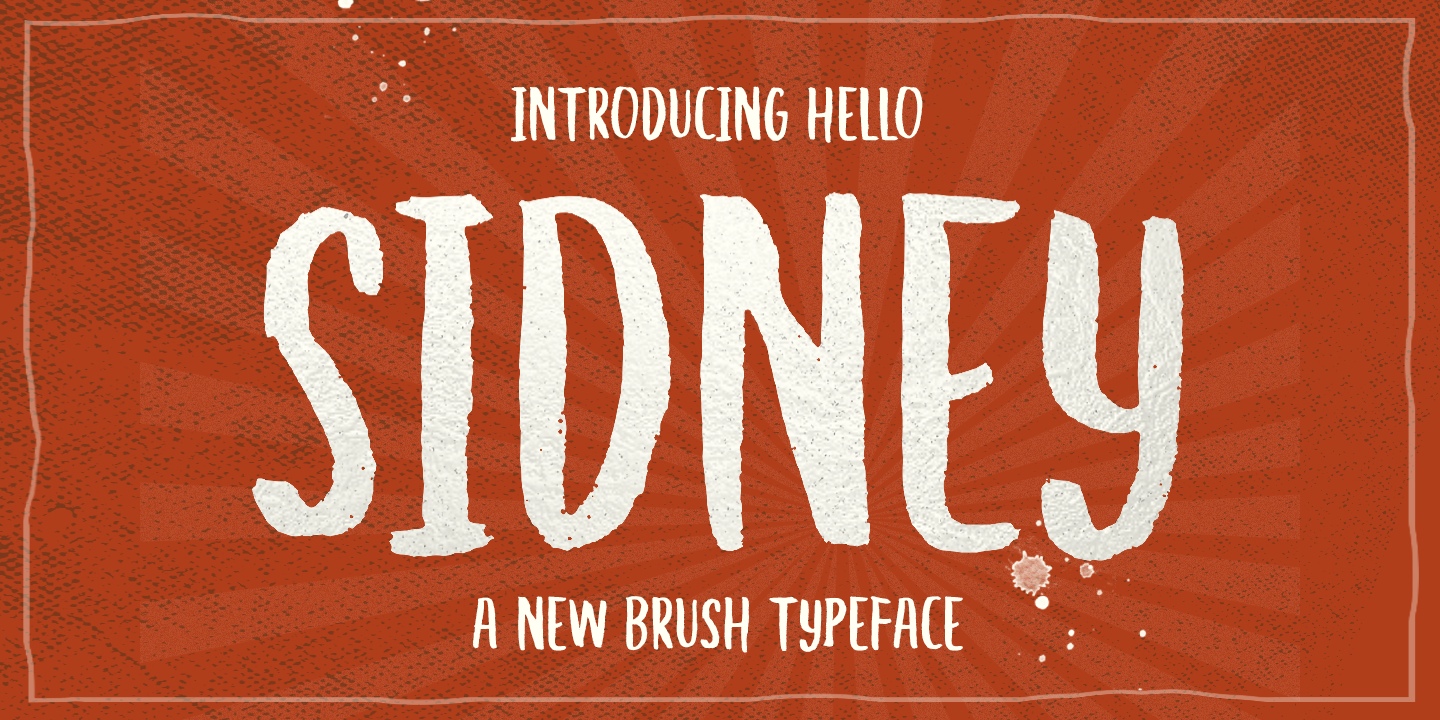
Hello Sidney Font
Hello Sidney Font is perfect for friendly branding, casual logos, children's products, greeting cards, social media content, lifestyle brands, coffee shop signage, handmade product labels, personal blogs, and welcoming business communications.
Hello Sidney Font is exciting because it radiates warmth and approachability with its friendly character shapes and inviting personality that instantly creates positive emotional connections with audiences. Its casual elegance and human touch make it perfect for brands that want to communicate authenticity, friendliness, and genuine care for their customers in an increasingly impersonal digital world.
The Hello Sidney Font family includes Regular weight, Bold variation, Light style, Italic companions, Outline version, Shadow effects, Alternative characters, and Decorative elements, providing designers with versatile tools for creating approachable typography that feels both professional and personally welcoming.
Hello Sidney Font Free Download brings genuine warmth to modern design challenges, featuring carefully crafted letterforms that balance casual charm with professional reliability. This delightful typeface combines approachable aesthetics with practical functionality, making it an excellent choice for businesses and brands that prioritize customer connection and authentic communication over corporate formality.
Whether you're developing community-focused brands, designing family-oriented products, creating welcoming service experiences, or producing content for local businesses, Hello Sidney Font provides the perfect foundation for memorable brand relationships. Its friendly character makes it particularly effective for cafes, boutiques, wellness services, educational programs, and small businesses that thrive on personal connections.
Perfect for small business owners, community marketers, lifestyle bloggers, and designers working with human-centered brands, this font offers the approachable qualities essential for building trust and loyalty. The typeface's versatile nature ensures consistent warmth across digital platforms, print materials, and environmental applications.
Hello Sidney Font includes comprehensive character support, thoughtful spacing, and optimized readability that maintains friendliness without sacrificing professionalism. Its welcoming approach to typography makes it invaluable for brands seeking to differentiate through genuine human connection. Create authentic brand experiences with Hello Sidney Font Free Download and discover typography that truly says hello to your audience.